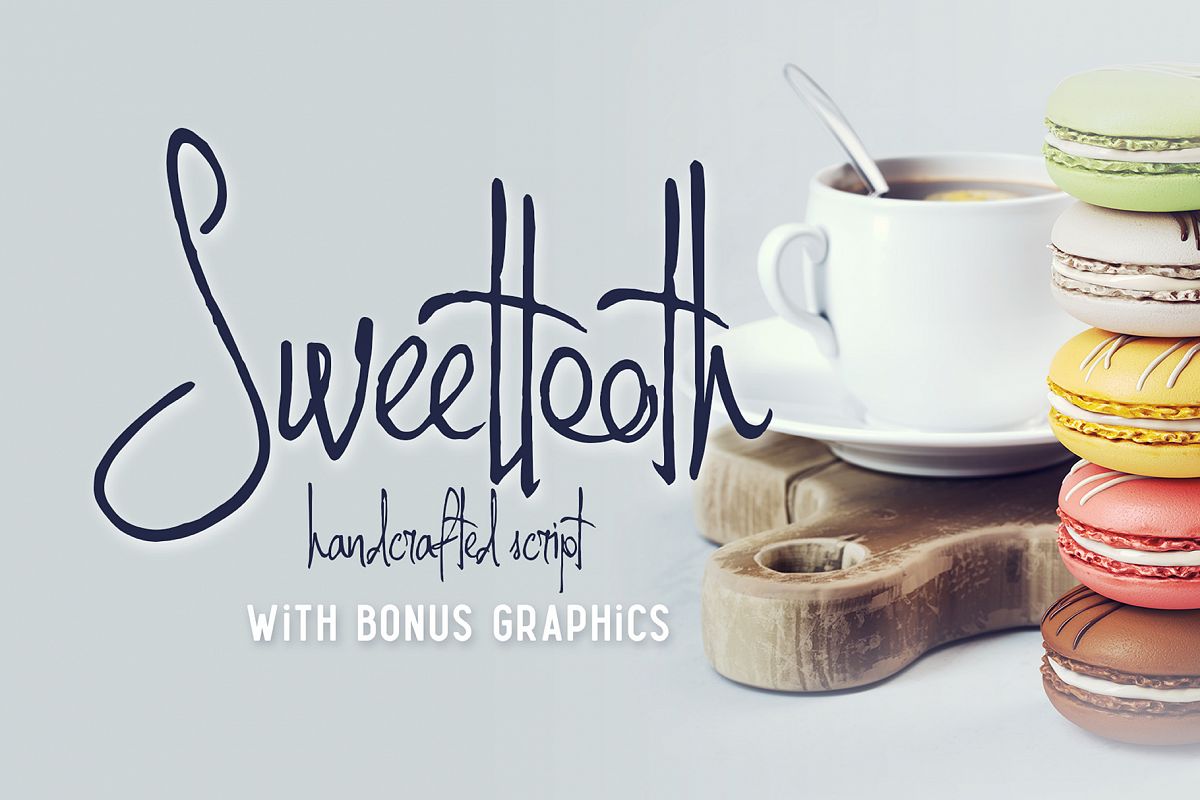
Hi! Introducing a script font named Sweettooth.
It's fully handcrafted and has a natural look. As a bonus you will get a
set of high quality 3d renders of sweet macaroons in 8 different
compositions (4th screenshot). Also it has several ligatures to make it
more authentic.